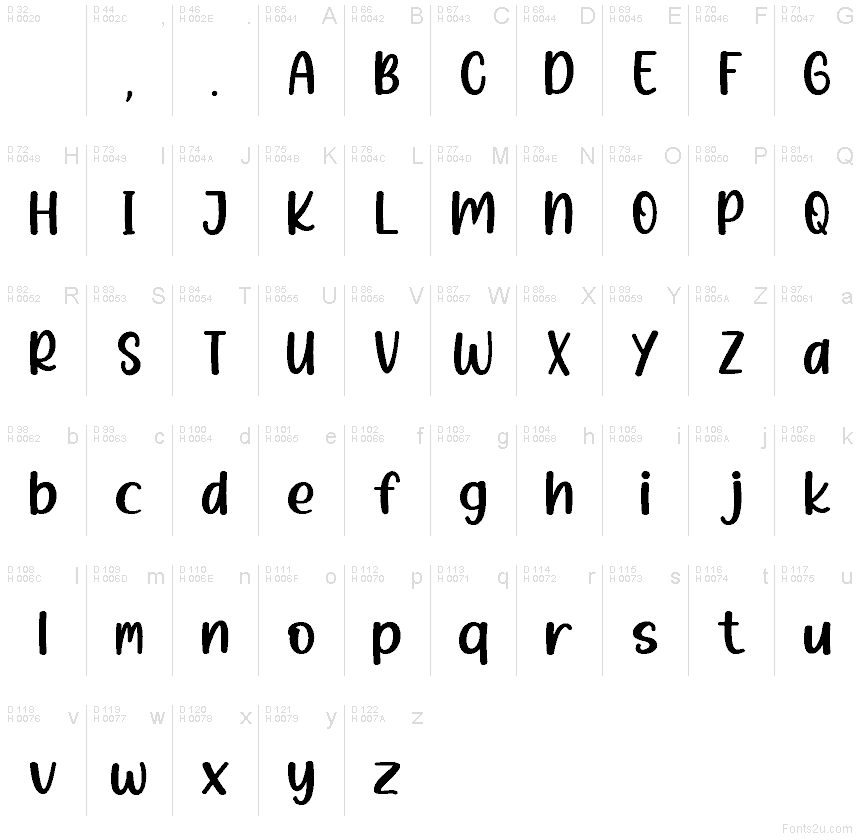
Han Nari Regular
Han Nari font by Valiant Project is a free handwritten font. It solves a familiar challenge: getting that friendly, human touch without sacrificing clarity. The letters feel brush-drawn—rounded terminals, smooth curves, and a gentle, inky weight that’s consistent enough to read fast. Counters stay open, spacing is even, and the rhythm is steady, so headlines pop while longer phrases stay comfortable.
Using Han Nari, you can bring warmth to product packaging, social graphics, café menus, kid-focused branding, quotes, event flyers, and thumbnails. This free font shines on large sizes, where its soft edges and bold strokes look lush and tactile. For balance, pair it with a light geometric sans in small captions, letting Han Nari carry the headline voice.